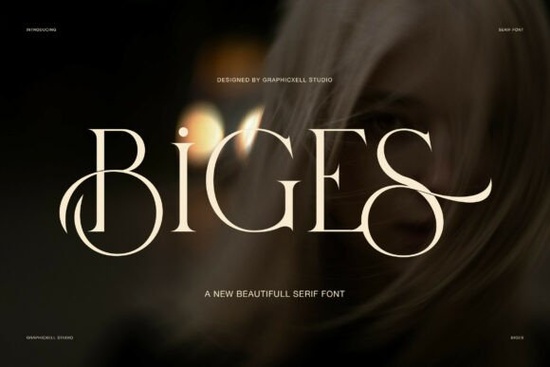
If you're looking for a serif typeface that feels elegant without being overdone, Biges Font is worth a close look. It combines clean serif details with graceful swashes on select letters, giving your text a refined, polished appearance. The uppercase characters are slim and balanced, while the wide spacing keeps everything calm and readable. It's the kind of typeface that makes even a simple word look like it belongs on a high-end brand.
What Makes Biges Different From Other Serif Fonts?
Plenty of serif fonts aim for elegance, but many end up looking stiff or overly ornamental. Biges takes a softer approach. The swashes flow naturally across selected letters rather than overwhelming the entire word. This gives you a design that feels stylish and intentional not cluttered.
The wide letter spacing is another detail that sets it apart. Instead of cramming letters tightly together, Biges gives each character room to breathe. This creates a calm, airy feel that works especially well for logos, headlines, and brand names where every letter matters.
If you've explored fonts like Aveloire or Zacorsea, you'll notice Biges has a similar refined energy but with its own personality. The swashes are more subtle, and the overall tone leans toward understated luxury rather than bold drama.
Where Does Biges Font Work Best?
Biges is a display font at heart, which means it shines in situations where text needs to make a visual impression. Here are a few practical uses:
- Logos and brand marks The balanced uppercase letters give brand names a professional, polished look.
- Headlines and hero text The swashes add personality without distracting from the message.
- Wedding and event invitations The soft, graceful style fits formal stationery perfectly.
- Social media graphics Clean and stylish enough to stand out in a busy feed.
- Print-on-demand products Think mugs, tote bags, and greeting cards that need a classy typographic touch.
- Packaging and labels Especially for beauty, fashion, or lifestyle brands that want a premium feel.
That said, it's not ideal for long paragraphs of body text. Like most display serif fonts, Biges is designed to be noticed use it where it can breathe.
How Does It Compare to Other Elegant Serif Options?
If you're browsing Creative Fabrica's serif font collection, you'll find quite a few options in this style. Fonts like Stanza offer a more literary, editorial feel, while the aesthetic elegant serif bundle gives you multiple styles in one package.
Biges fits somewhere in the middle it's elegant enough for luxury branding but approachable enough for everyday creative projects. The swashed letters give it character, but the clean baseline keeps it readable. For designers who want something that works across different project types, that balance matters.
Who Is This Font a Good Fit For?
Biges works well for a range of creative professionals and hobbyists:
- Small business owners building a brand identity from scratch
- Graphic designers working on client logos and marketing materials
- Print-on-demand sellers who need clean, sellable typography
- Crafters making personalized gifts, signs, or wall art
- Social media managers creating consistent branded content
If your projects call for something that looks expensive and intentional but doesn't require hours of custom lettering, a font like Biges can save you serious time.
Quick Checklist Before You Buy
- Check the license Make sure it covers your intended use (personal, commercial, POD, etc.).
- Preview with your own text Type out your brand name or headline to see how the swashes interact with specific letter combinations.
- Test at different sizes Display fonts can look very different at small versus large scales.
- Pair it wisely Use a simple sans-serif for body text so Biges stays the visual star.